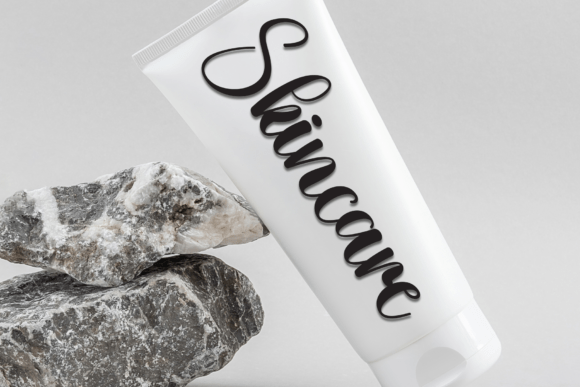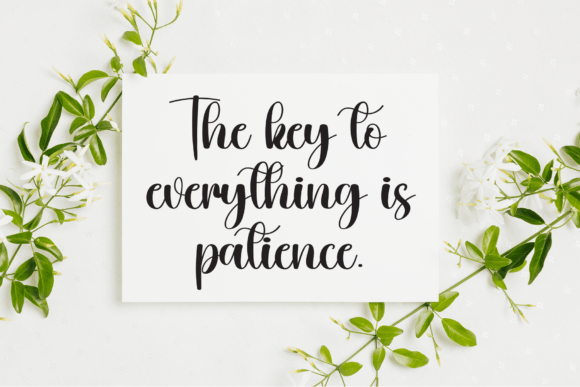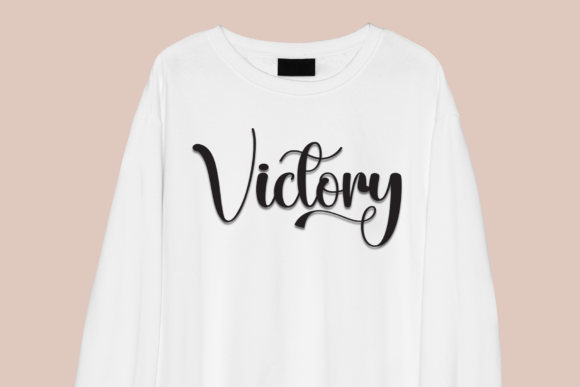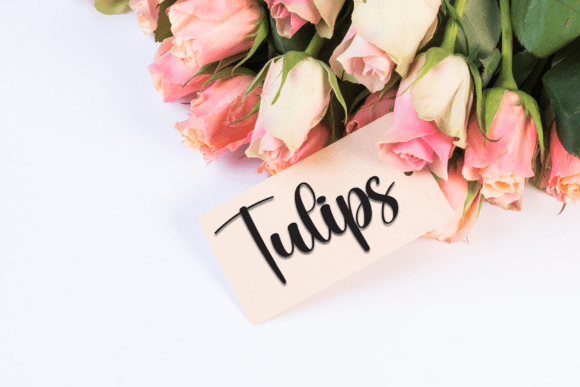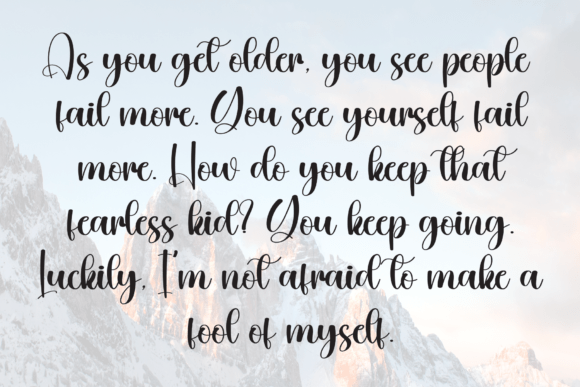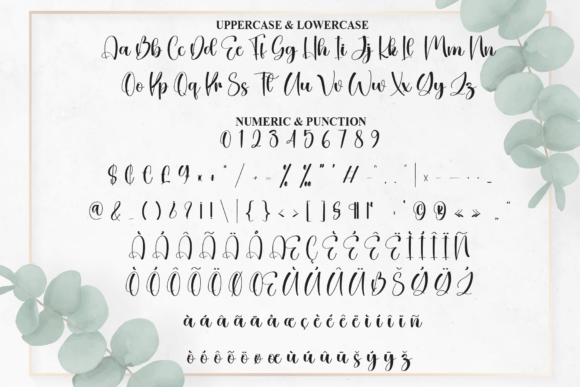
The Boldly Font: A Personal Touch for Your Designs
Have you ever been in the middle of a design project, and suddenly, you’re stuck on finding the perfect font? I recall a recent experience where a client asked for a custom invitation that felt both elegant and cozy. As I scrolled through my font library, I stumbled upon the Boldly Font, and it was love at first sight! ✨ This script handwritten font brings a personal, stylish touch to your designs with its fluid strokes and natural flow. Perfectly mimicking the charm of real handwriting, it’s ideal for invitations, branding, greeting cards, quotes, social media graphics, and more.
- ✨ The fluid strokes and natural flow of the font make it feel like real handwriting.
- ✅ It’s perfect for adding a personal touch to invitations, branding, and greeting cards.
- 💫 The font is highly versatile and works well for both elegant and cozy designs.
- 🎨 It pairs well with a variety of design elements, from simple shapes to intricate illustrations.
While the Boldly Font is amazing, there are a few things to keep in mind: 🤔
- ⚠️ Some of the letters may appear a bit inconsistent in size, which can add to the handmade feel but might not be suitable for all designs.
- ⚠️ The font may not work well for very long blocks of text, as it’s optimized for shorter, more personal messages.
The Story Behind Boldly Font
The Boldly Font was created with the intention of capturing the essence of real handwriting. The designer, inspired by the fluid strokes and natural flow of handwritten text, crafted a font that would bring a personal touch to any design. With a focus on elegance and coziness, the Boldly Font is perfect for designers and crafters looking to add a unique touch to their projects.
Q: What type of projects is Boldly Font best suited for?
A: Boldly Font is perfect for invitations, branding, greeting cards, quotes, social media graphics, and more.
Q: Is Boldly Font available in different styles or weights?
A: Currently, Boldly Font is available in a single style, but the designer may release additional variations in the future.